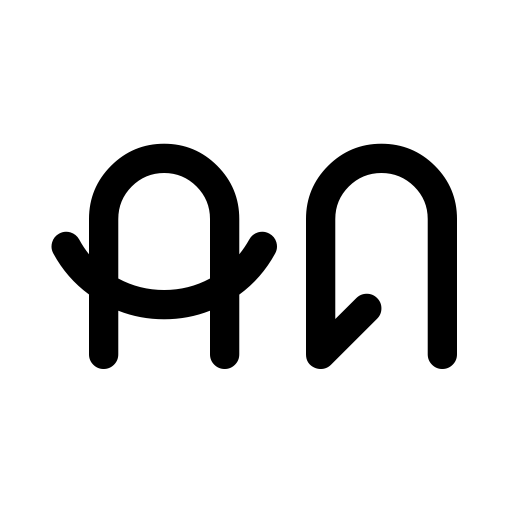
Original Font is a modern, geometric sans serif typeface with a distinctively playful and futuristic character. Its rounded strokes and unique, stylized letterforms give it a creative, tech-inspired feel that works well in logos, posters, and branding where a fresh, innovative look is desired. This font stands out in display and headline settings, adding personality while maintaining readability.
Original Font